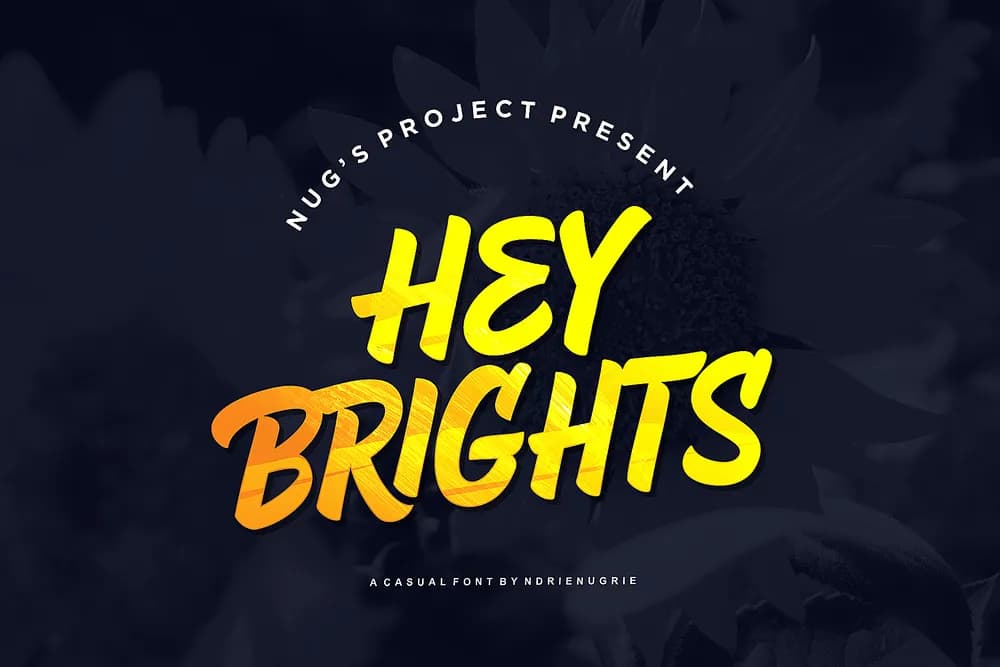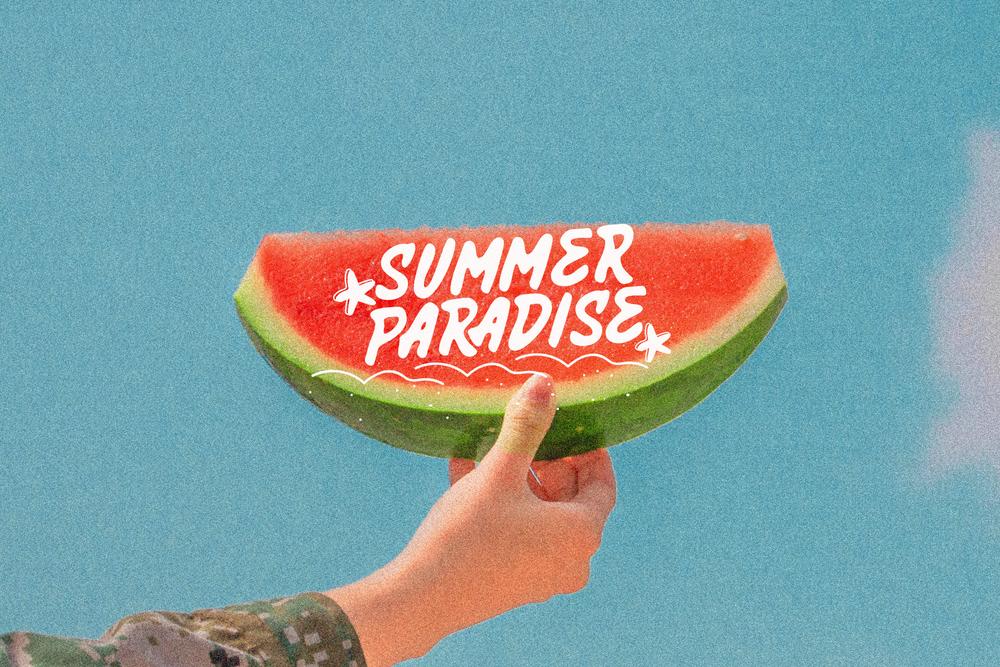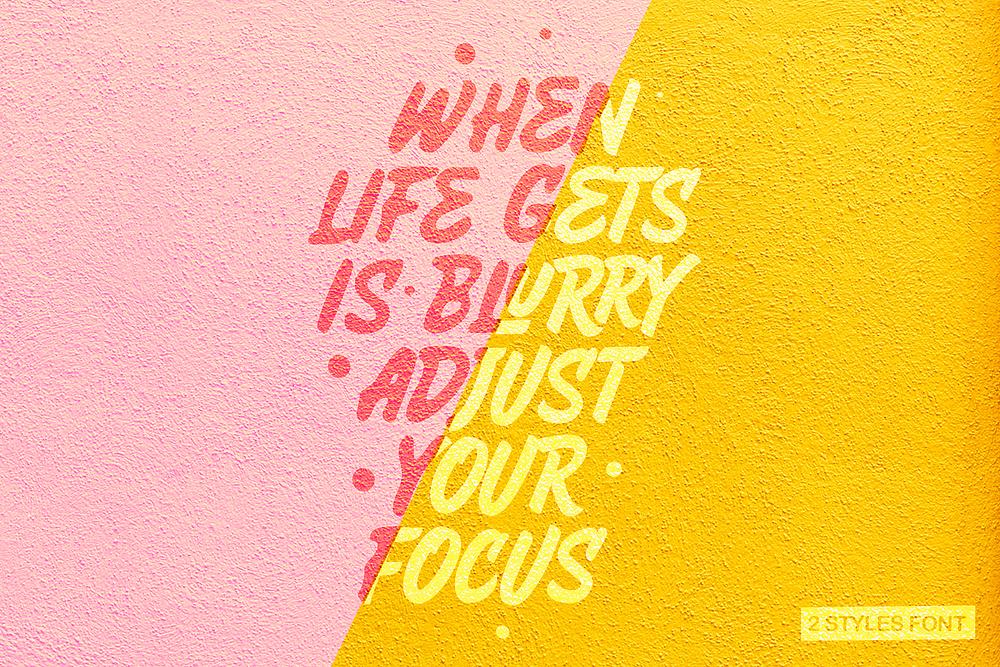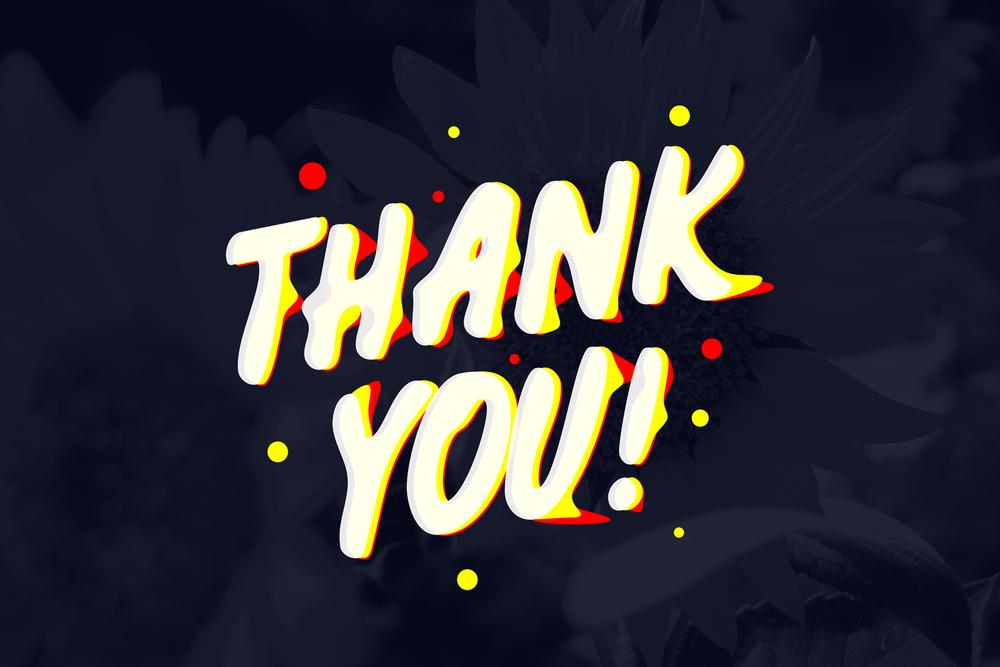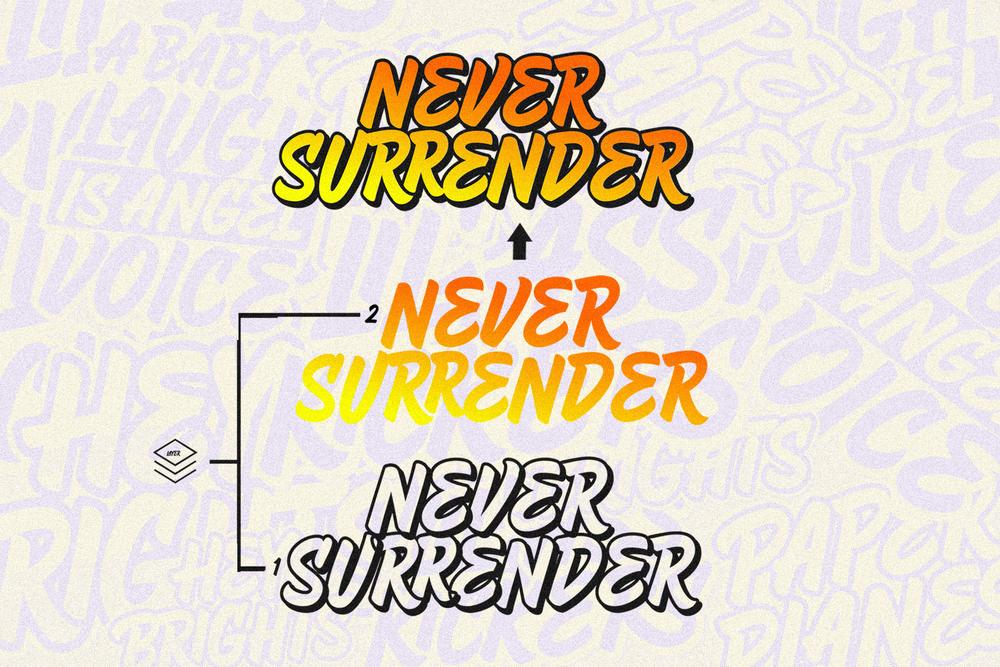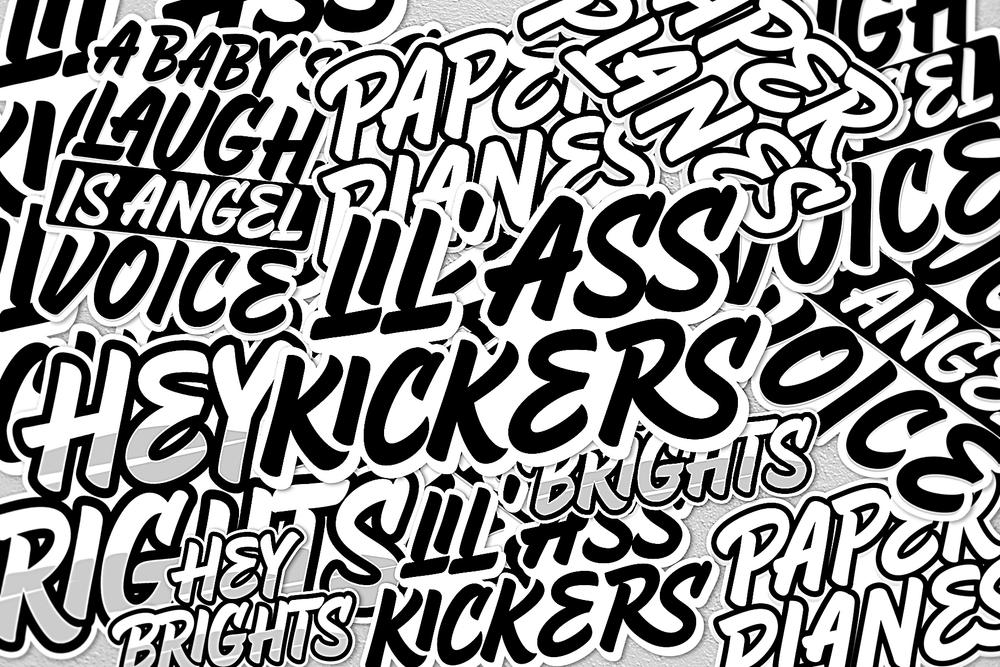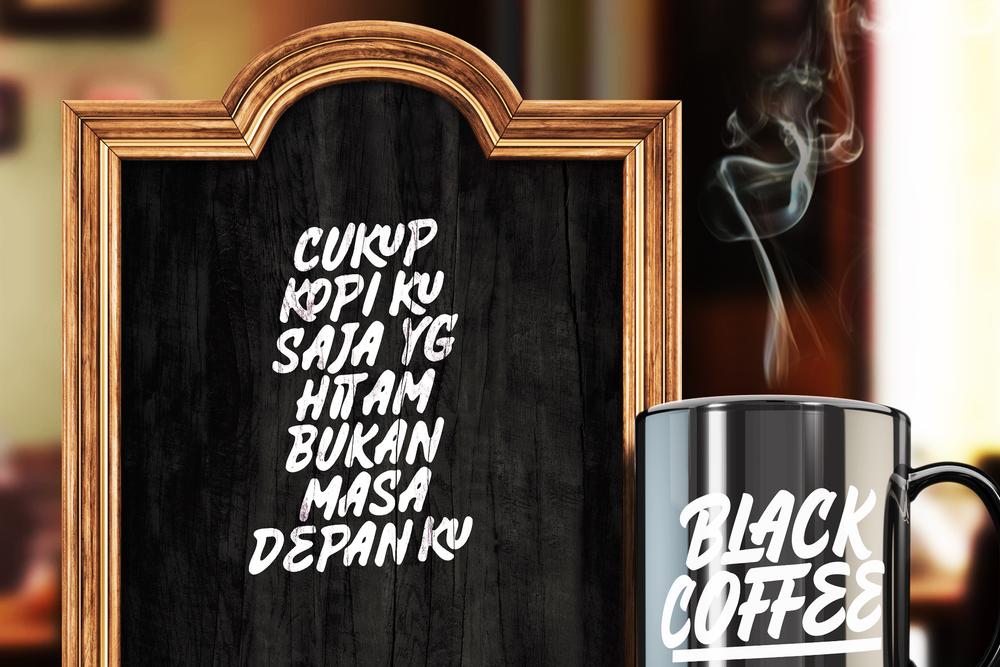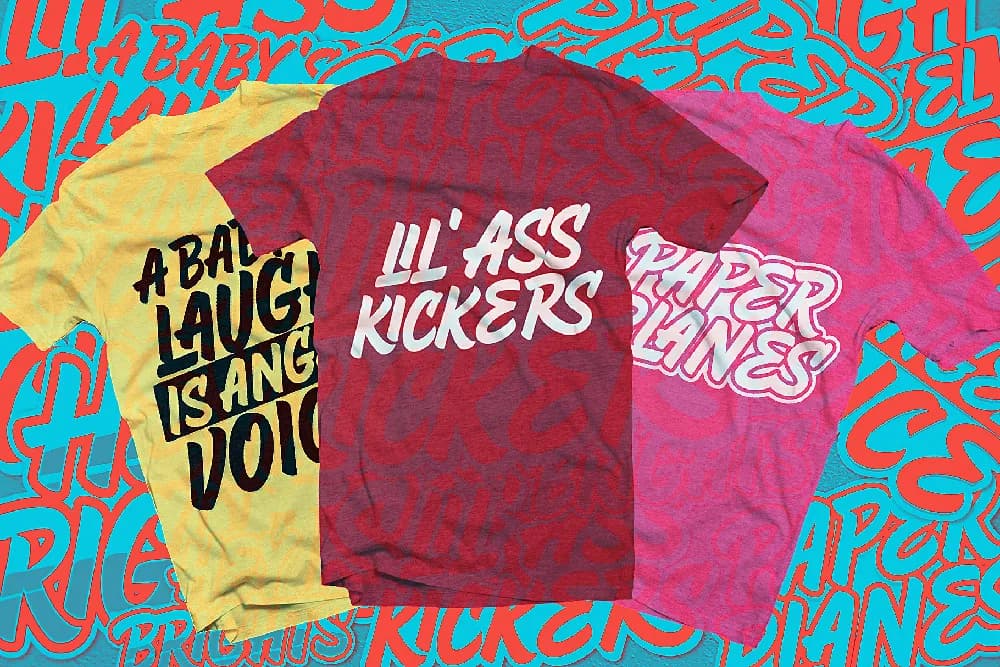
hi, thank you for visiting my shop. this time I will introduce my new font. "hey Brights" is a capital font with a casual style. This font is perfect for something related to food, children, kids illustrations, book titles, website titles, writing on video, or anything you can try to gain experience in graphic design needs. What you get: HeyBrights OTF, TTF, WOFF HeyBrights Extrude OTF.TTF HeyBrights Outline OTF, TTF HeyBrights Blur OTF TTF Features: Multilingual Support Number, Punctuation. Support in Mac and Windows OS Easy to install